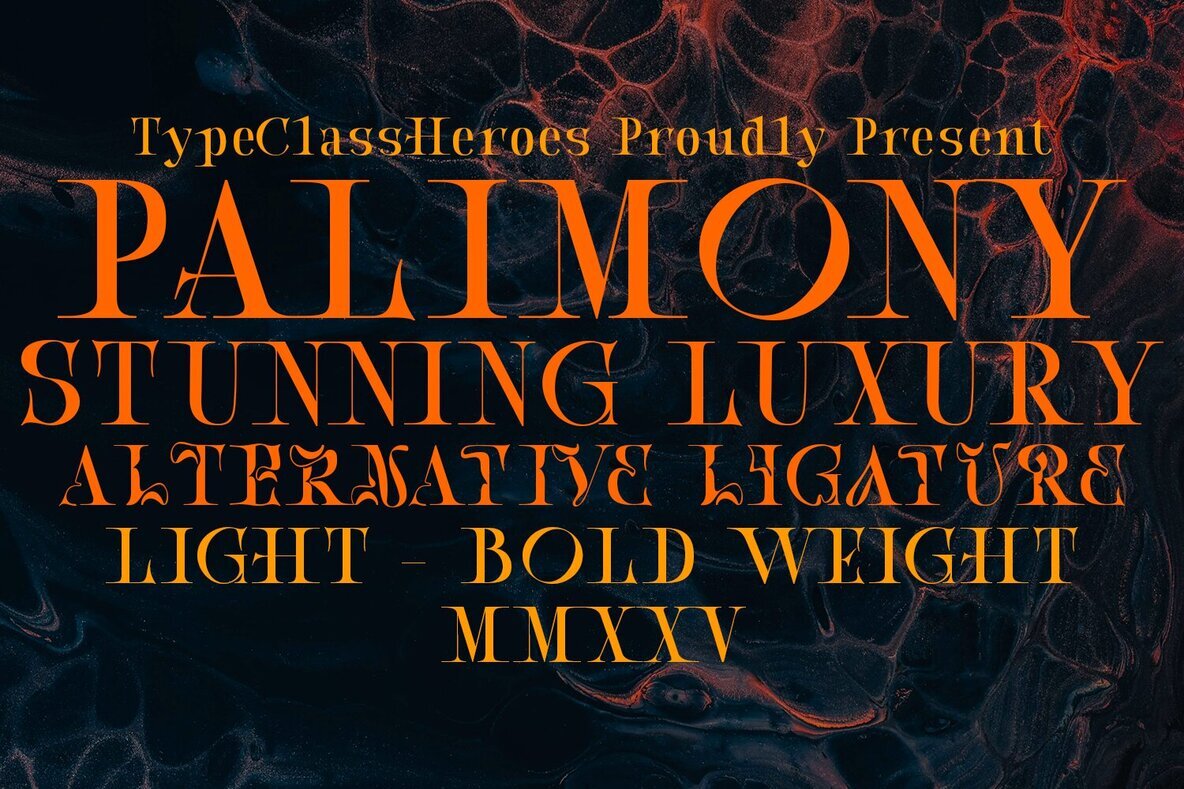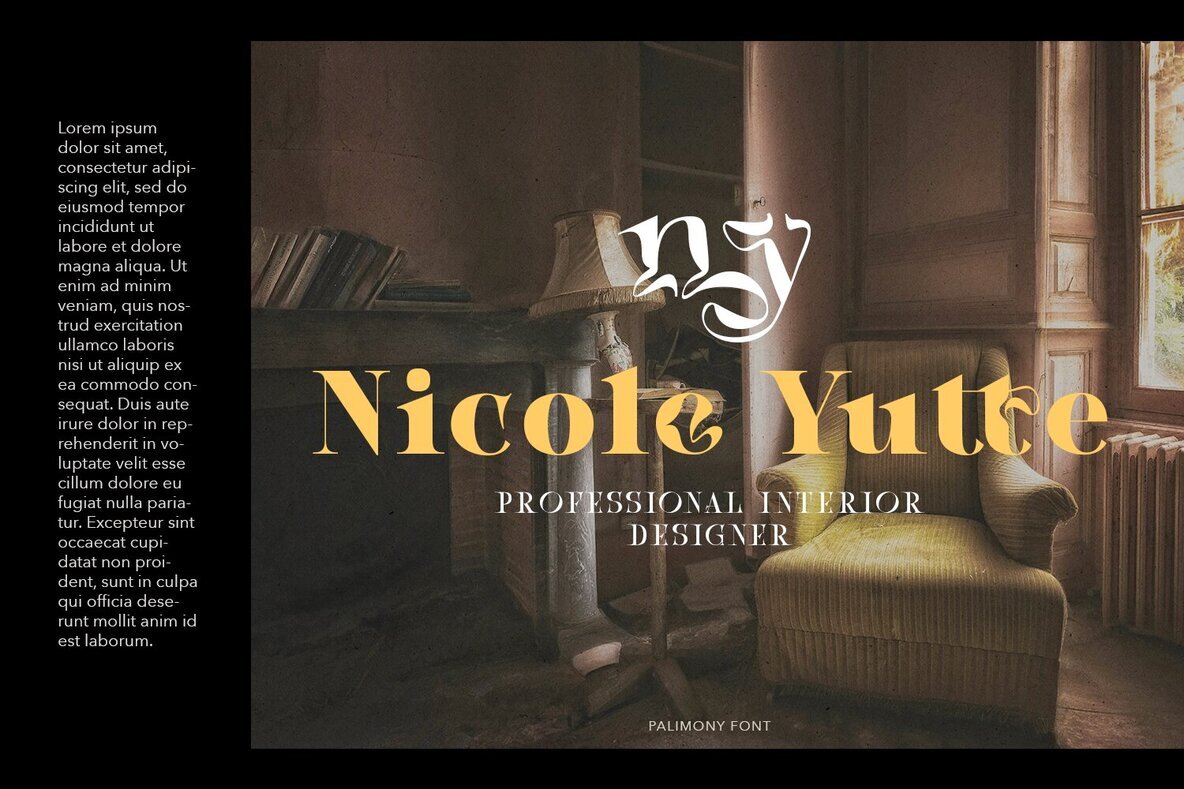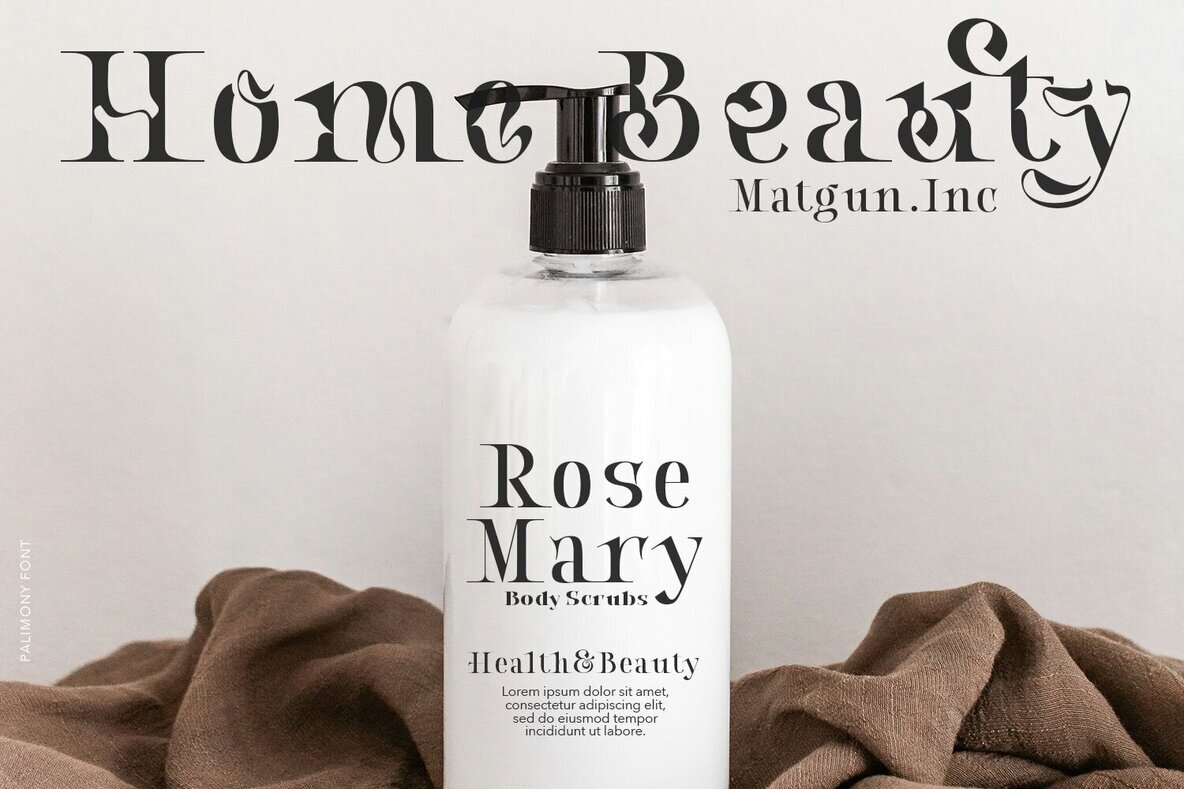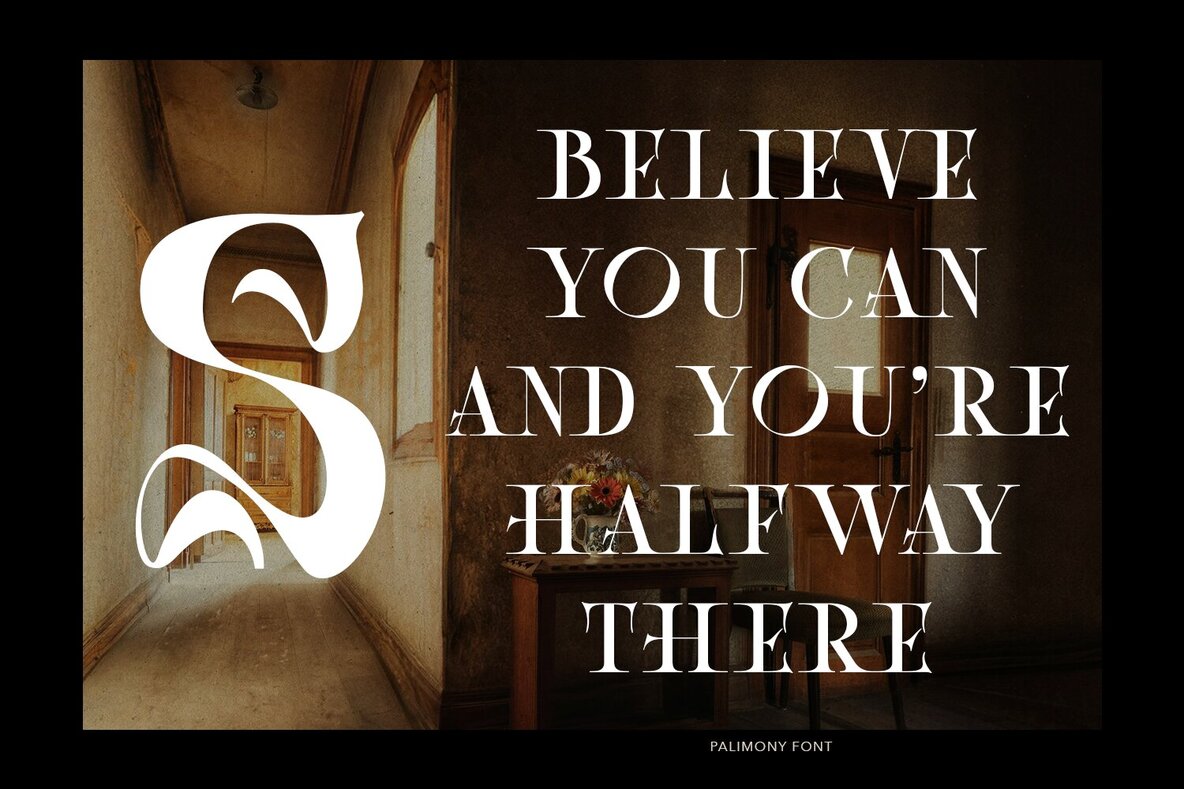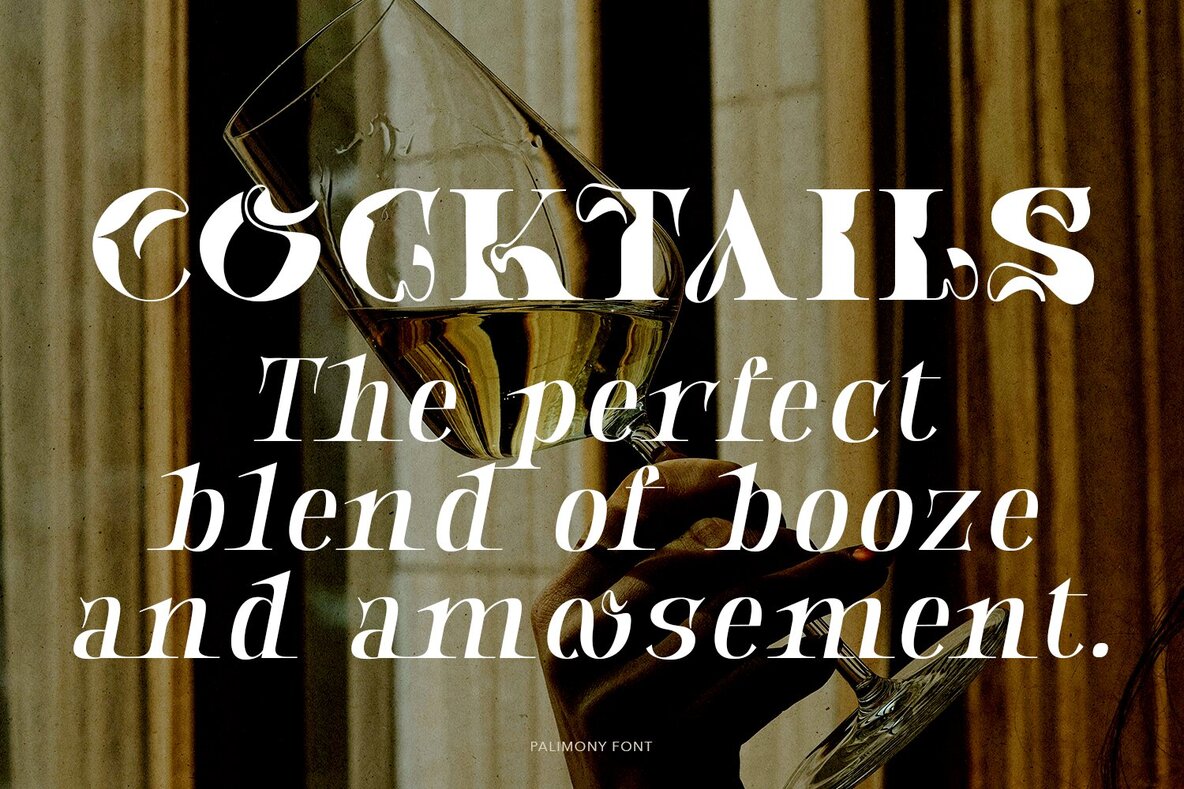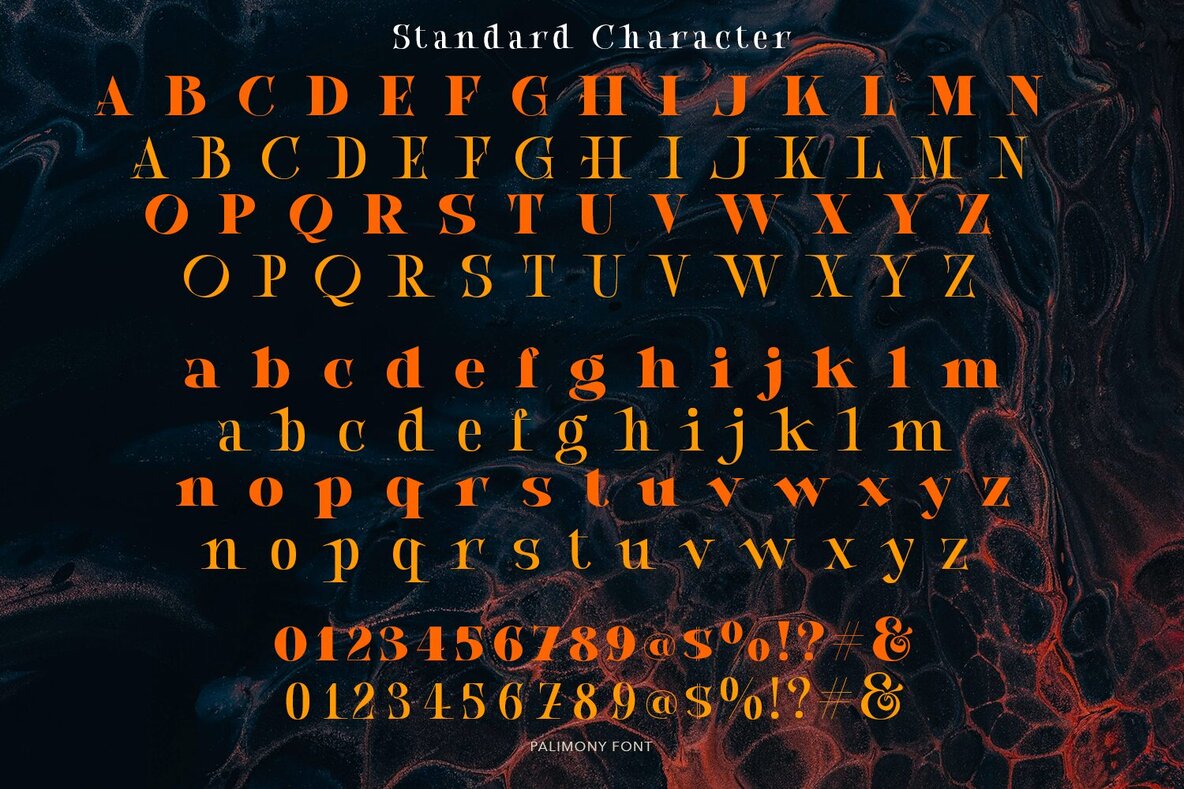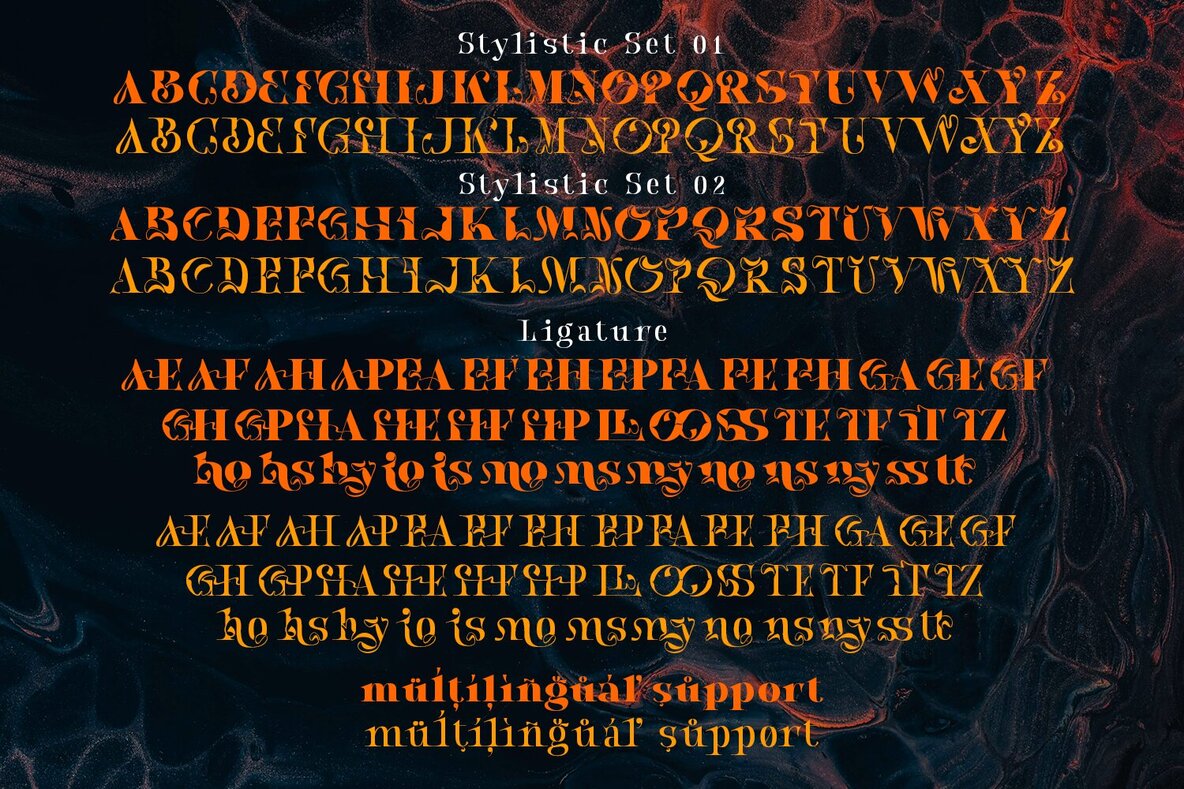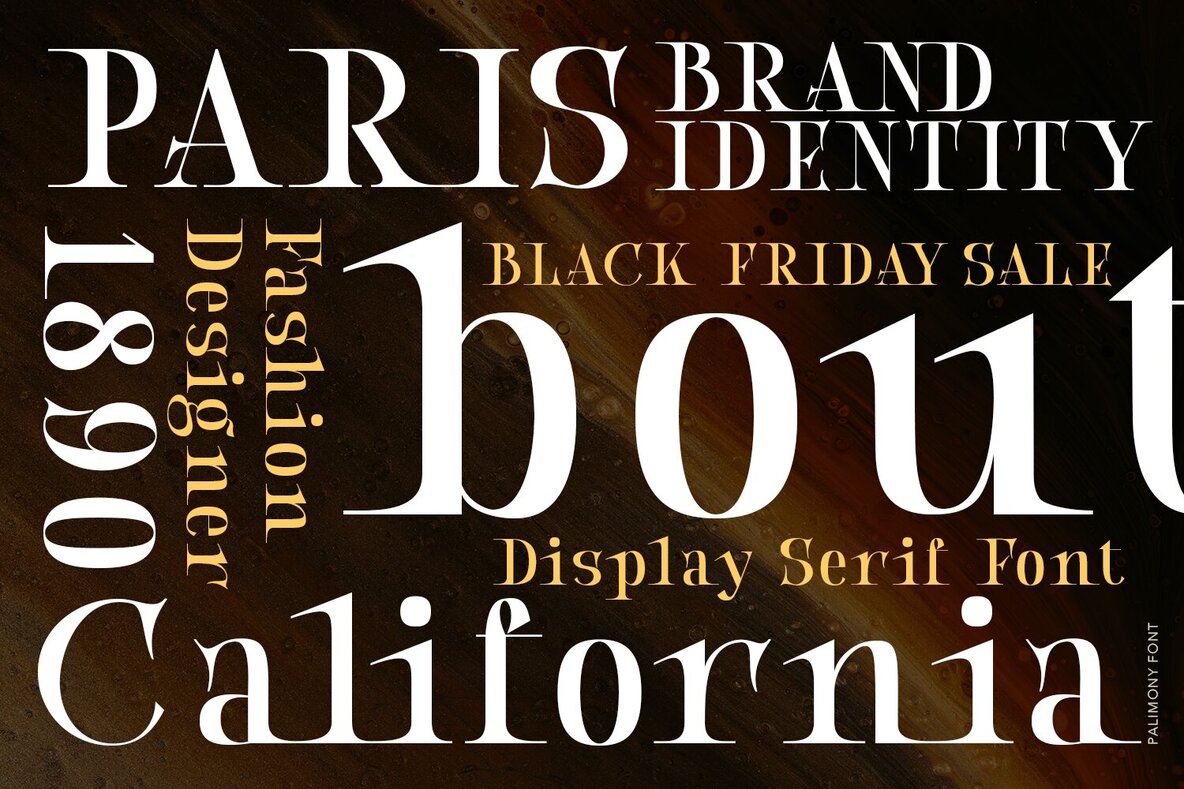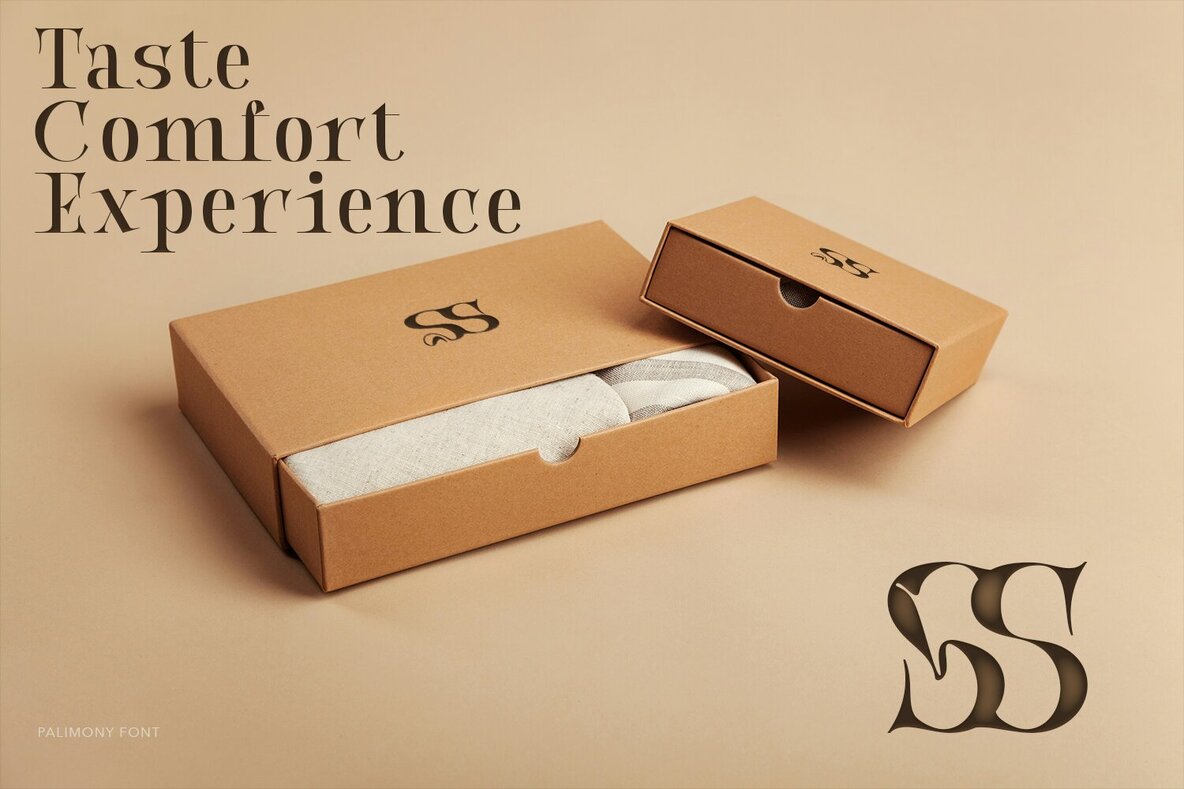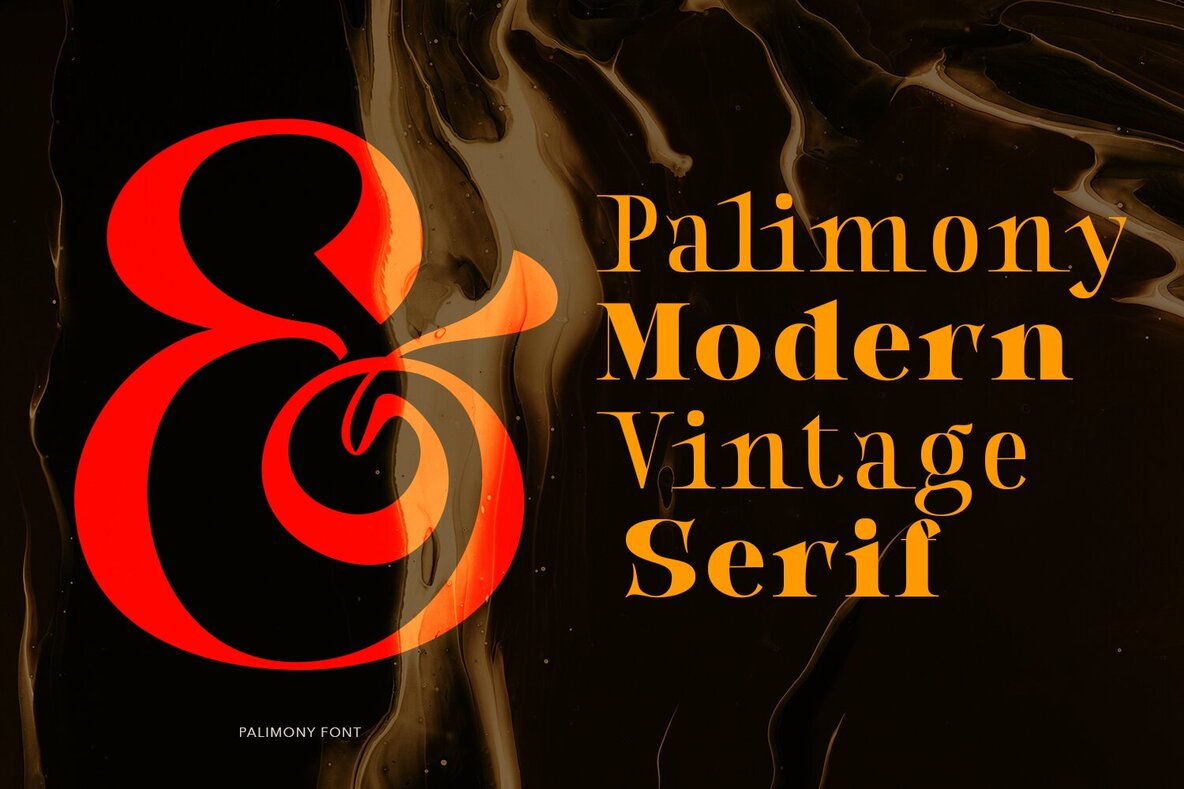
Palimony Font
Palimony is a distinguished serif typeface, featuring both light and bold weights, making it an ideal choice for logos and headlines. Its elegant, condensed design provides a refined and professional aesthetic, perfect for modern and classic projects alike. Palimony's versatility is enhanced by its array of alternate characters and ligatures, allowing for customizable and sophisticated typography solutions. This family serif is well-suited for designers seeking a sleek, polished look in their visual communications.